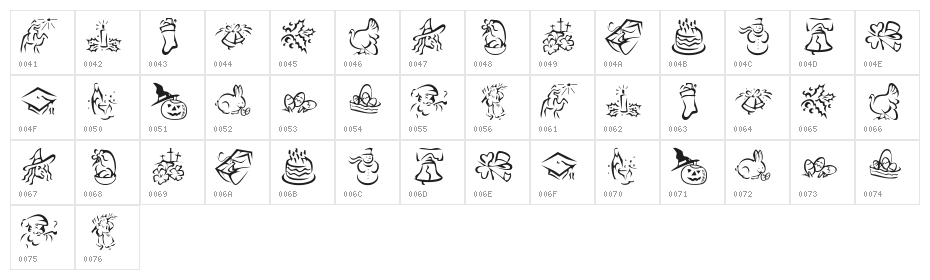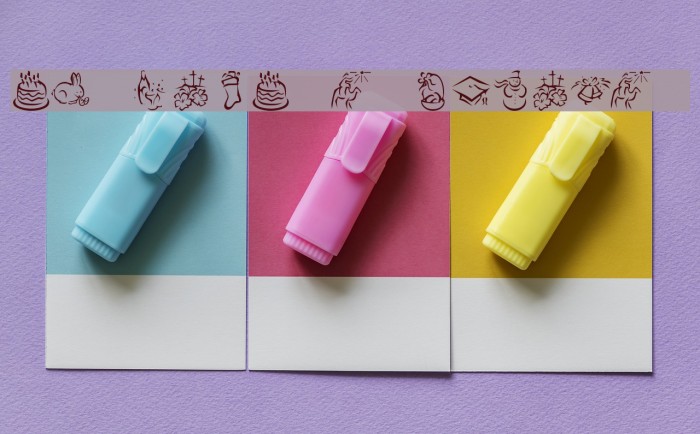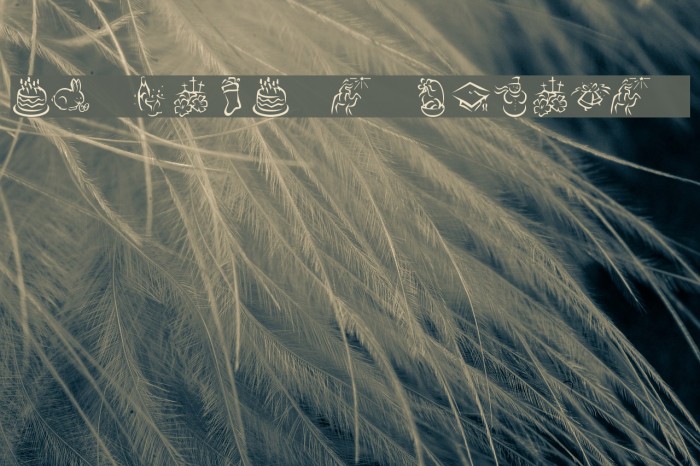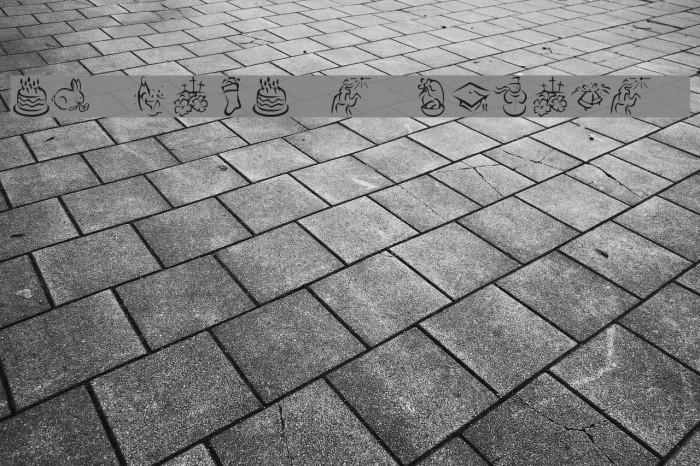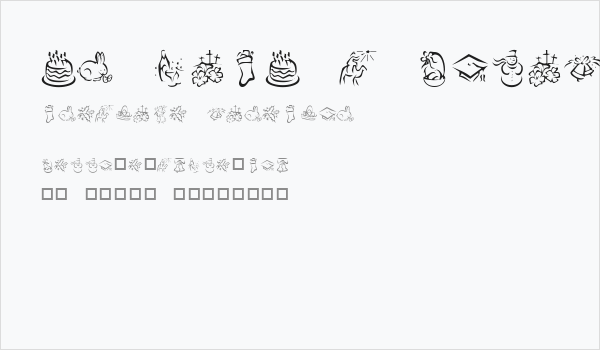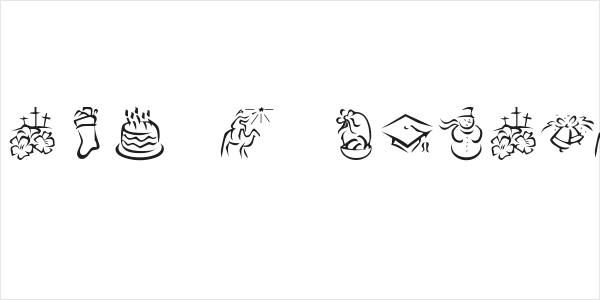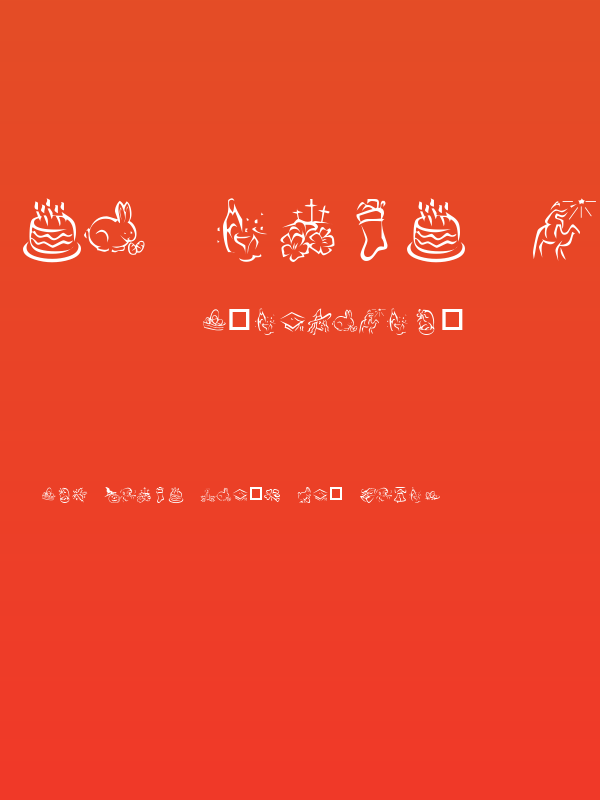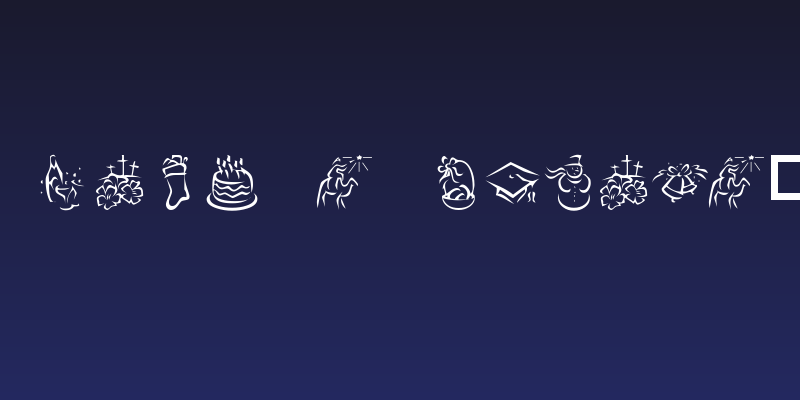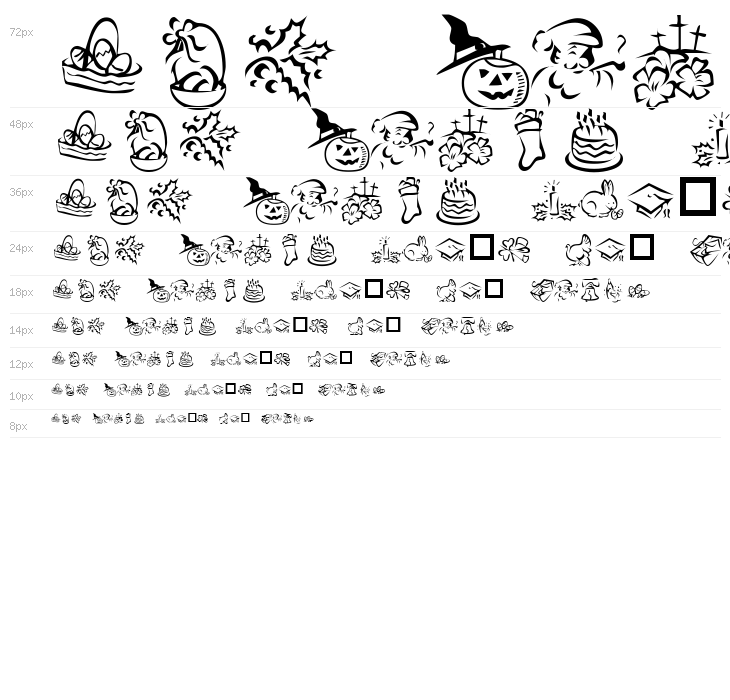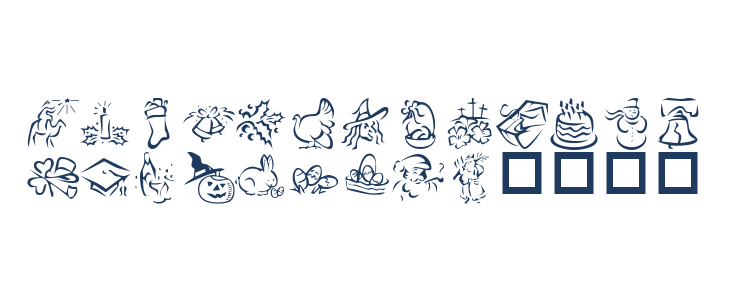
KR Pick A Holiday 2 Font
KR Pick A Holiday 2 Description
This is a decorative font featuring a variety of holiday-themed icons. Each character is represented by a unique illustration, capturing the essence of different celebrations such as Christmas, Halloween, Easter, and more. The style is playful and whimsical, with a hand-drawn quality that adds a personal touch. The icons include elements like pumpkins, bunnies, snowmen, and bells, making it perfect for festive occasions. The line work is clean and bold, ensuring clarity and visibility even at smaller sizes.
Proposed ProjectsIdeal for holiday greeting cards, festive event invitations, seasonal decorations, and themed social media graphics.